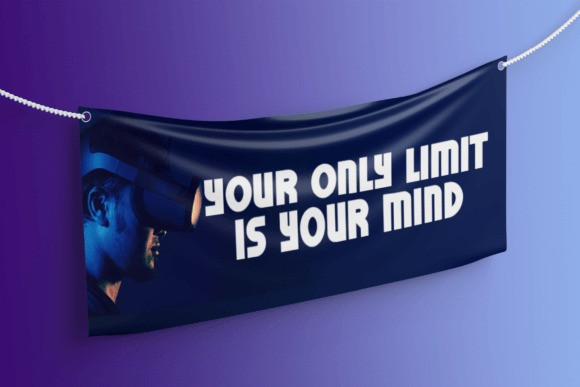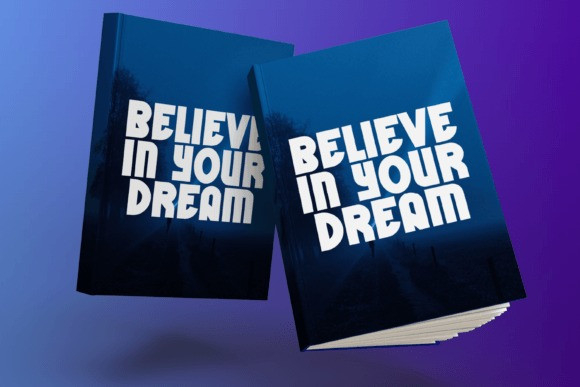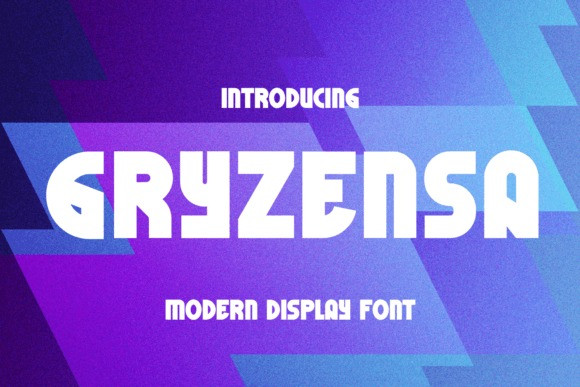
Gryzensa Font
Gryzensa Font is an elegant and cool display font, making it an excellent option for various design purposes. It is well-suited for logos, branding materials, social media posts, and much more. Featuring the perfect amount of trendiness, this font will make your designs come to life.